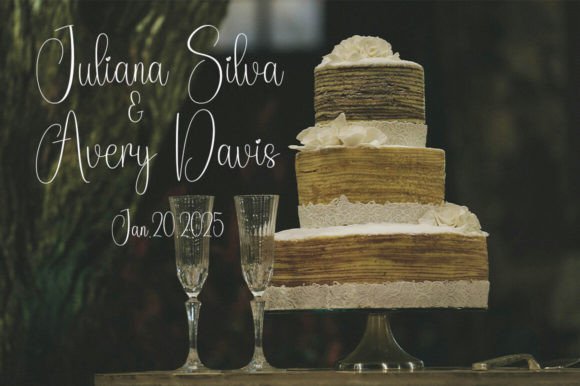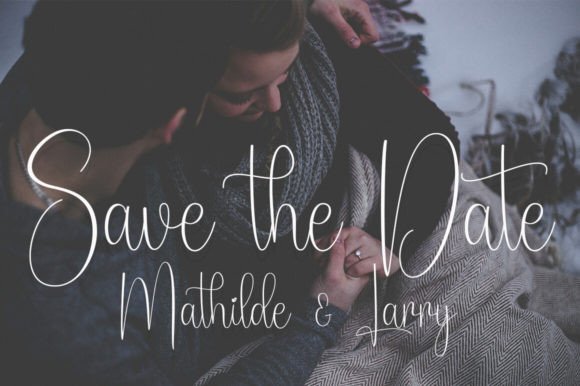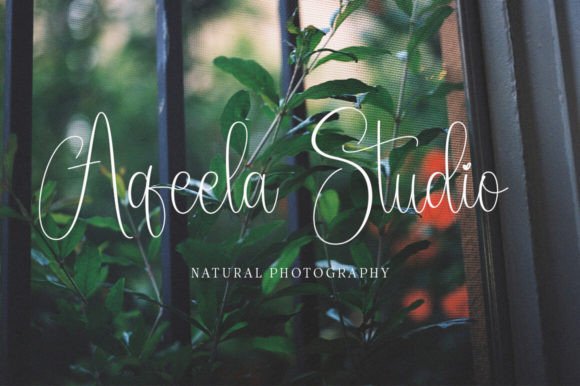
Introduction to Autosian Font
The Autosian Font latest signature combines sleek elegance with modern flair, featuring smooth, flowing lines and distinctive curves.
Its dynamic character adds a touch of sophistication, making it perfect for branding, invitations, or any creative project that seeks to leave a lasting impression Each letter exudes personality, harmonizing classic and contemporary styles for a unique typographic experience.
Key Features of Autosian Font
Why Choose Autosian Font?
Autosian Font offers exceptional quality and versatility, making it a valuable addition to your design toolkit. Whether you’re creating for personal projects or commercial use, Autosian Font delivers professional results.